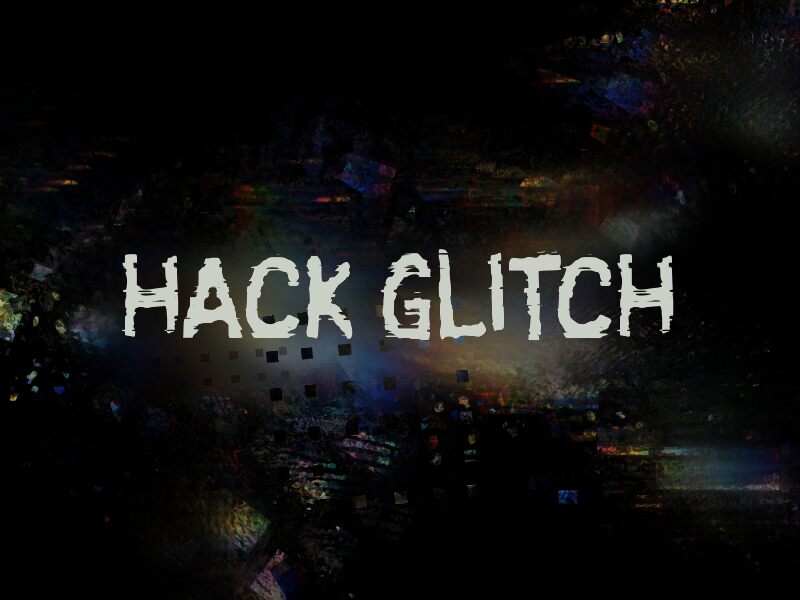
HACK GLITCH
Hack Glitch font is a display typeface with a strikingly distorted style by wep. Hack Glitch features a glitch textual effect in its characters that gives them an experimental, abstract feel. Its condensed width further enhances its visual appeal and makes the letters especially prominent when used on their own.
Use it to design artwork for your songs and album covers, band logos, streetwear apparel fonts, experimental business projects, photography signature watermarks or icons, bold posters for events and concerts or as simple web typography on niche websites. Have fun with this free display font!